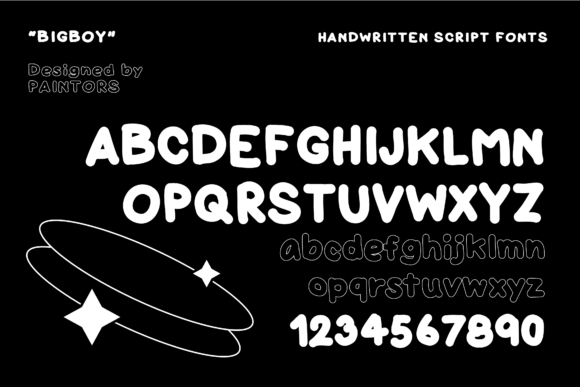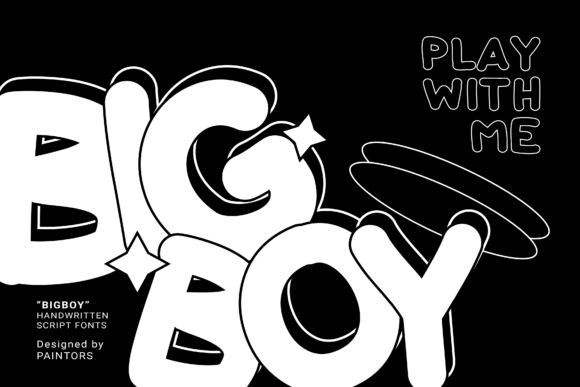
Introducing Bigboy Font: The Whimsical and Playful Bold Font for Creative Designs
Are you tired of using the same old fonts in your designs? Do you want to add a touch of quirkiness and playfulness to your projects? Look no further than Bigboy Font! This bold and whimsical font is perfect for designers and crafters who want to bring a sense of fun and energy to their work. In this article, we’ll explore the features and benefits of Bigboy Font, and show you how to make the most of this delightful typeface.
The Characteristics of Bigboy Font
Bigboy Font is a bold and playful font that is sure to capture attention. Its whimsical design features rounded edges and a carefree spirit that makes it perfect for headlines, posters, and children’s materials. The font’s quirky charm is sure to put a smile on your audience’s face, making it ideal for designs that require a touch of personality and whimsy.
One of the key features of Bigboy Font is its bold and vibrant appearance. The font’s thick lines and rounded edges give it a friendly and approachable feel, making it perfect for designs that need to stand out from the crowd. Whether you’re creating a poster, a flyer, or a children’s book, Bigboy Font is sure to add a touch of fun and energy to your project.
The Benefits of Using Bigboy Font
So why should you choose Bigboy Font for your next design project? Here are just a few benefits of using this delightful font:
- Perfect for headlines and titles: Bigboy Font is designed to grab attention, making it perfect for headlines and titles. Its bold and playful design ensures that your message will be seen and remembered.
- Ideal for children’s materials: The font’s whimsical and playful design makes it perfect for children’s books, posters, and other materials. Kids will love the fun and energy of Bigboy Font!
- Adds a touch of personality to your designs: Bigboy Font is a unique and quirky font that adds a touch of personality to any design. It’s perfect for designers who want to stand out from the crowd and create something truly special.
- Easy to read: Despite its bold and playful design, Bigboy Font is easy to read, even in large blocks of text. This makes it perfect for designs that require a lot of content.
How to Use Bigboy Font in Your Designs
Using Bigboy Font in your designs is easy! Here are a few tips to get you started:
- Use it for headlines and titles: Bigboy Font is perfect for headlines and titles. Use it to grab attention and add a touch of personality to your designs.
- Pair it with other fonts: Bigboy Font pairs well with other fonts, especially those with a more traditional or elegant design. Try pairing it with a serif font for a fun and contrasting look.
- Experiment with colors: Bigboy Font looks great in a variety of colors. Try experimenting with different colors and gradients to add depth and interest to your designs.
- Use it for children’s materials: Bigboy Font is perfect for children’s materials, such as books, posters, and flyers. Its whimsical design is sure to delight kids and add a touch of fun to your designs.
| Font Name | Bigboy Font |
| Author | PAINTORS |
Bigboy Font is a whimsical and playful bold font that brings a touch of quirky charm to any design. Its bold and vibrant appearance makes it perfect for headlines, posters, and children’s materials. With its easy-to-read design and versatile style, Bigboy Font is sure to become a favorite among designers and crafters. So why not give it a try? Let your creativity run wild with Bigboy Font and see the fun and energy it can bring to your designs!